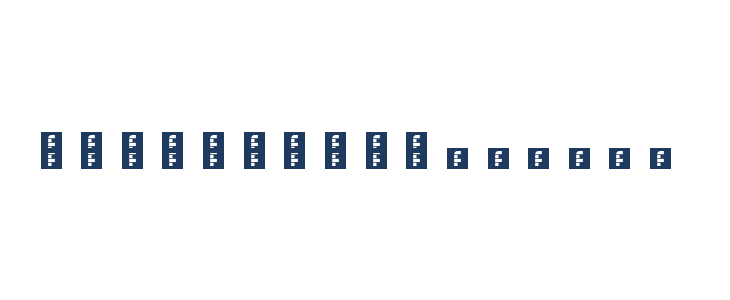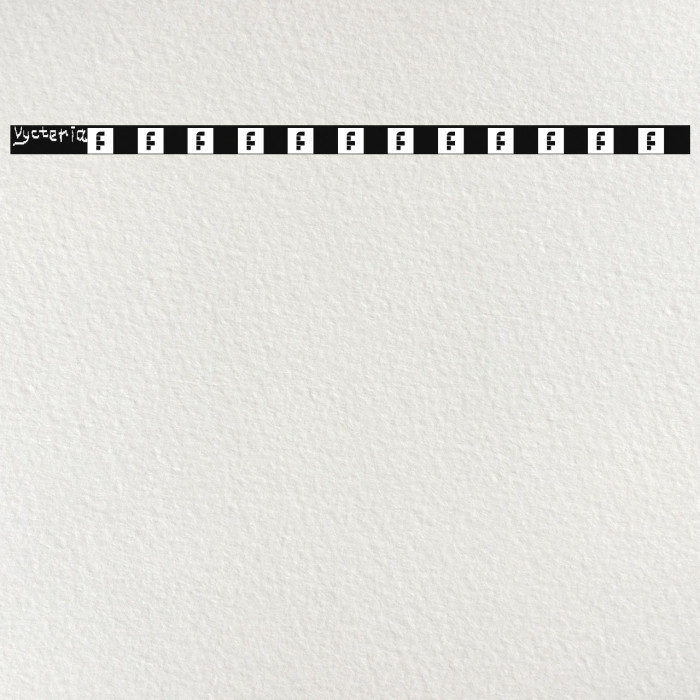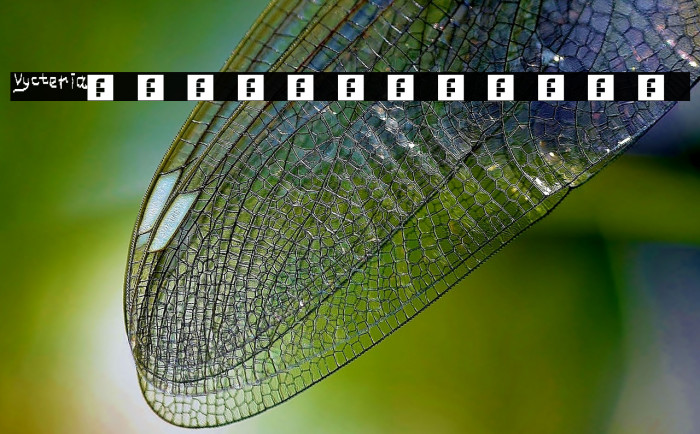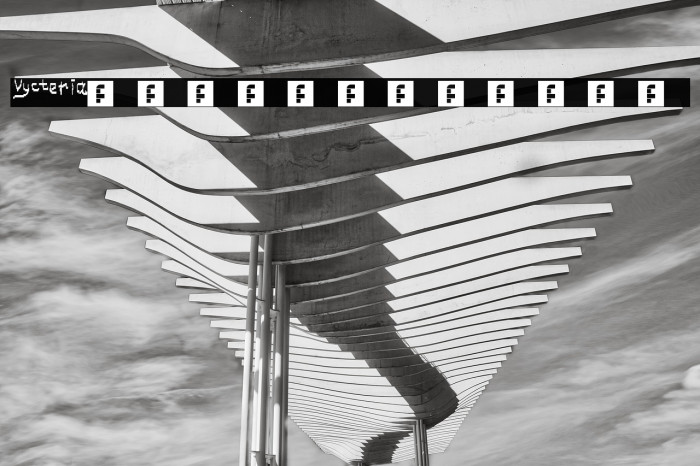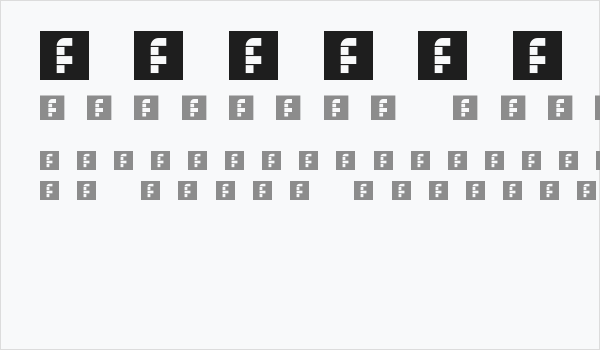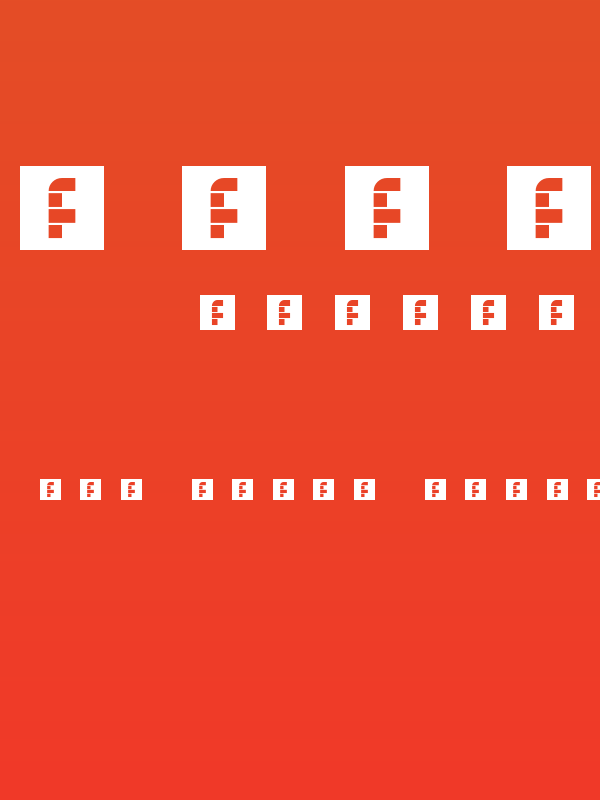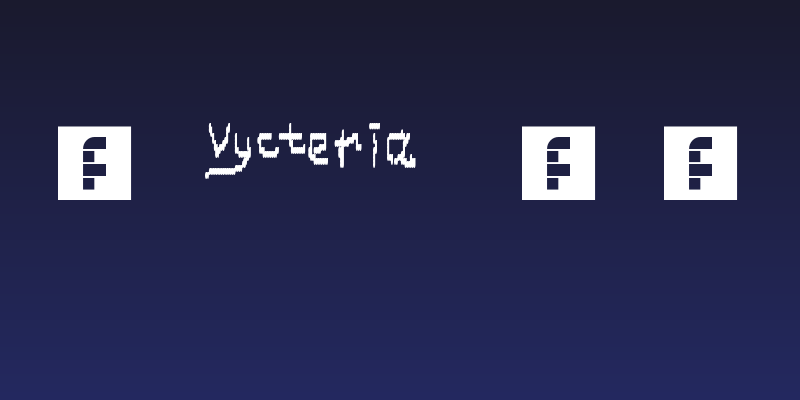
Vycteria Regular Font
Vycteria Regular Description
This font presents a unique and playful handwritten style, characterized by its casual and informal appearance. The letters are slightly slanted, adding a dynamic and lively feel to the text. The strokes are uneven, with varying thickness that gives it a personal touch, reminiscent of a quick note or a casual letter. This font's charm lies in its imperfect lines and organic flow, making it ideal for projects that require a human touch. The lowercase letters are particularly distinctive, with quirky loops and curves that enhance its friendly and approachable nature.
| Overall Style | Casual and playful |
| Use Case | Greeting cards, personal notes, creative projects |
| Proposed Projects | Ideal for greeting cards, personal notes, children's books, and creative projects that require a personal touch. |